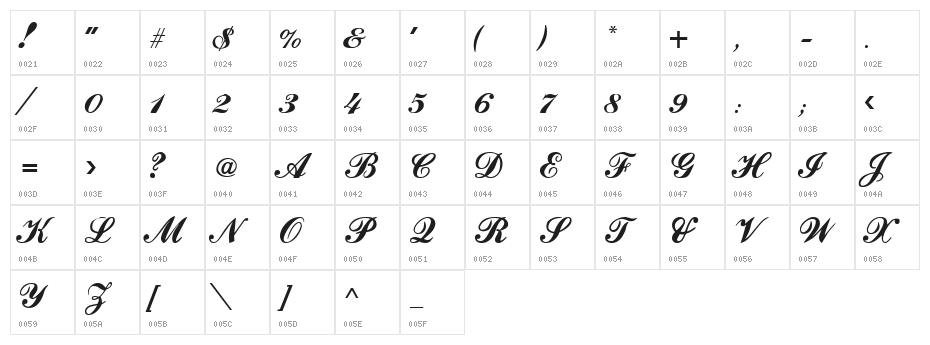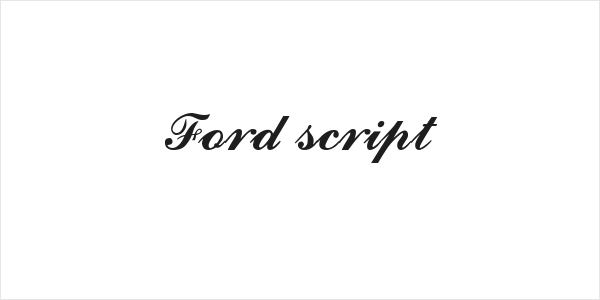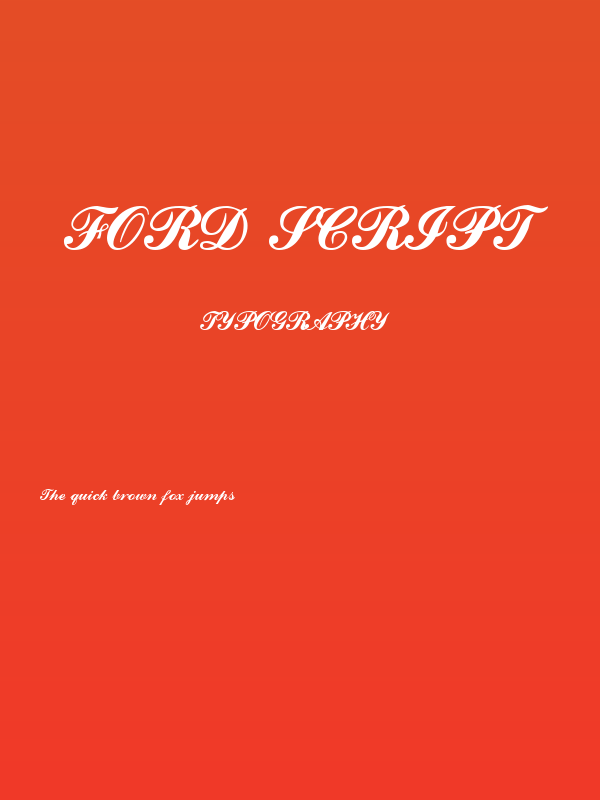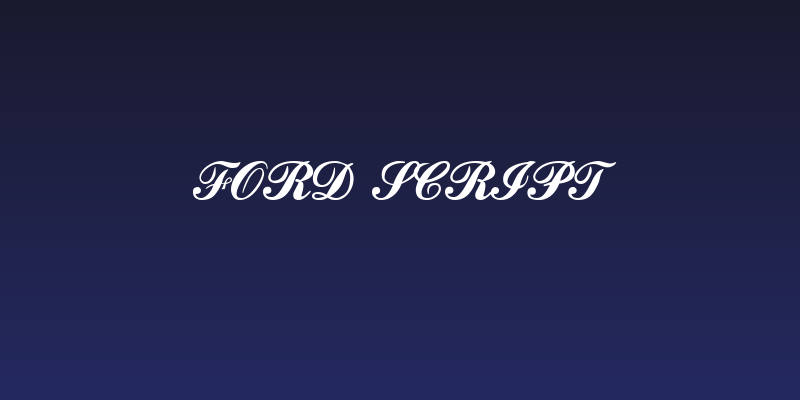
Ford script Font
| Gesamtstil | Classic |
| Anwendungsfall | Logos, Invitations, Decorative headings |
| Vorgeschlagene Projekte | Ideal for wedding invitations, luxury branding, elegant signage, and formal event materials. |